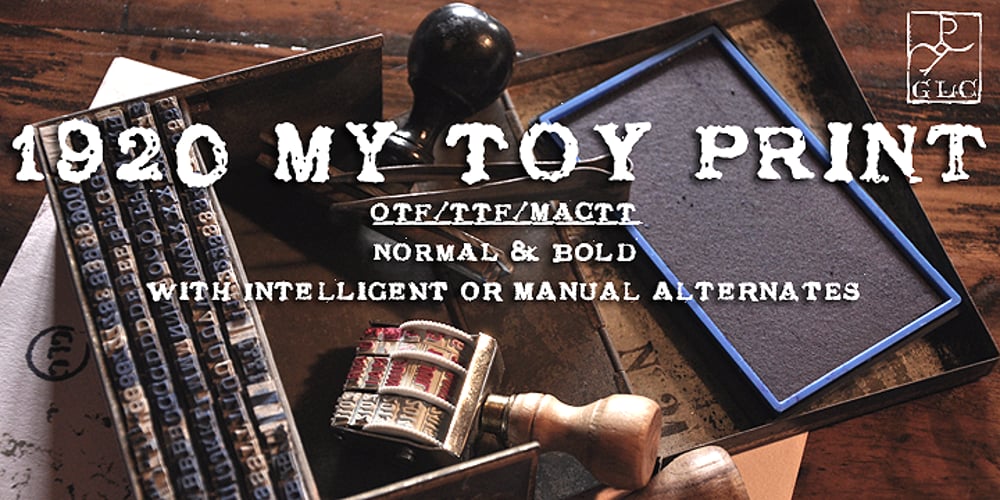
1920 My Toy Print Font Family was designed by published by GLC. 1920 My Toy Print contains 2 styles and family package options. This family was inspired by a small French “toy print” box, with rubber stamp characters, from the 1920s. The set contained only capital letters, no accented letters and limited punctuation. We have reconstituted a complete modern standard set. The doubling of each usual character in each style (A-Z/a-z and numerals) gives a rich and variously uneven appearance, looking like the results of the real use of those old rubber stamps. The bold style may be used as a reinforcement, mixed with Normal style without disadvantage, allowing four choices for each usual letter… The original size is 6mm (about 17 pts).